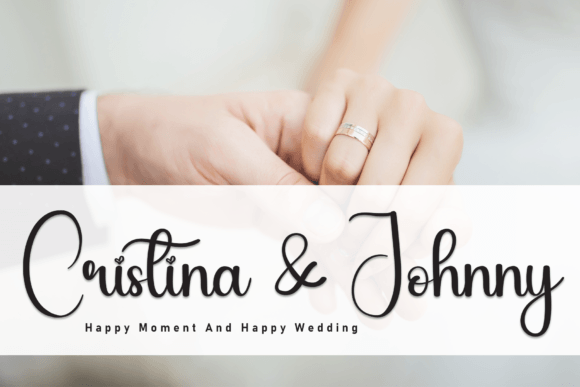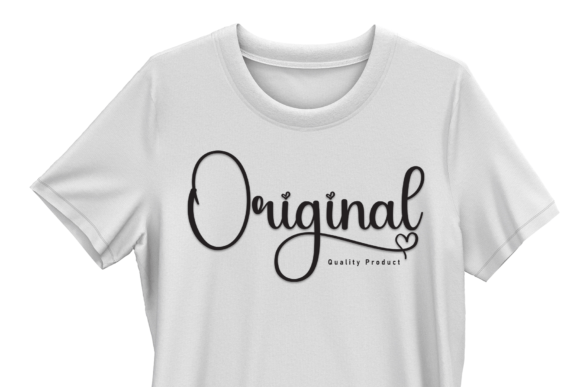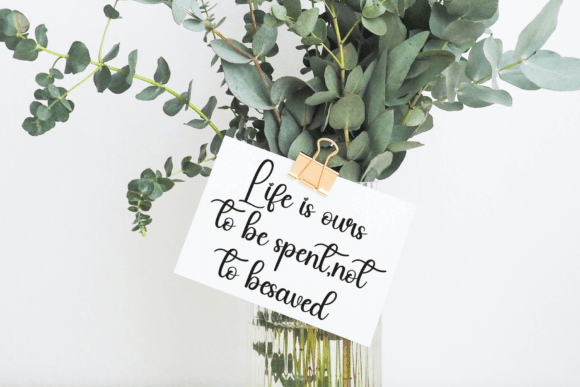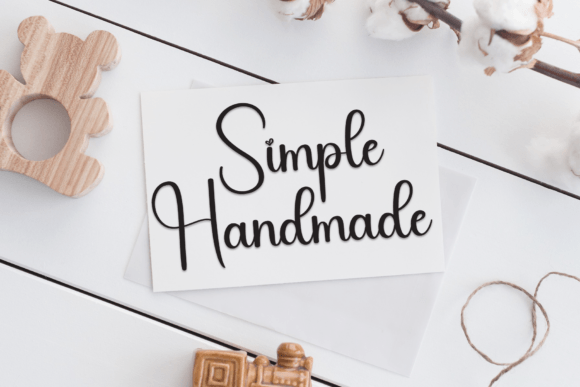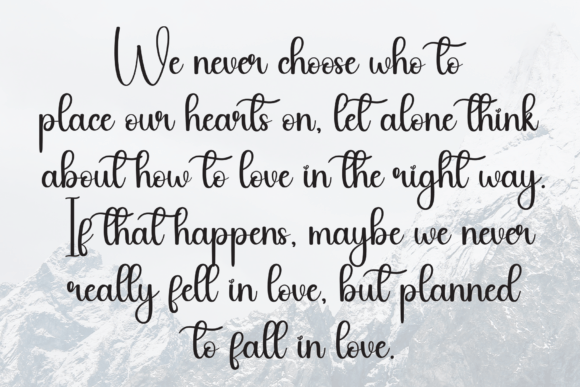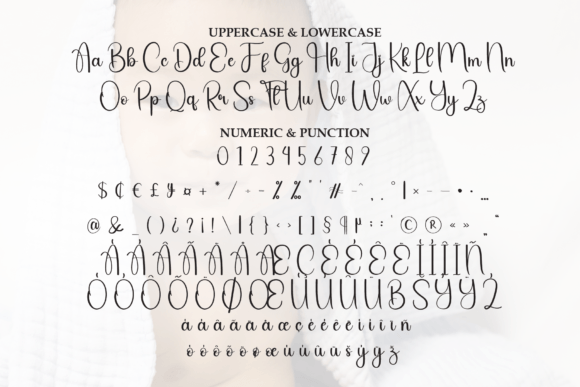
Babycute Font: Elevate Your Designs with Elegance and Magic
In the world of typography, few fonts manage to capture the essence of elegance and whimsy as perfectly as the Babycute Font. This magical script font is carefully crafted to bring a touch of sophistication and charm to any design project. Whether you’re a designer looking for the perfect font for your Instagram posts or a crafter seeking a beautiful calligraphy script for your DIY projects, Babycute is the ideal choice. In this article, we’ll explore the features and benefits of the Babycute Font and how it can transform your creative ideas into true pieces of art.
The Magic of Babycute Font
Babycute Font is more than just a script font; it’s an experience. Its elegant strokes and whimsical flair make it perfect for a wide range of applications, from digital designs to handmade crafts. The font’s unique charm lies in its ability to convey a sense of warmth and personality, making it ideal for projects that require a personal touch.
Key Features of Babycute Font
- Elegant Script Design: Babycute boasts beautiful, flowing script letters that add a touch of sophistication to any project.
- Versatile: Suitable for a variety of applications, including Instagram posts, DIY projects, branding, and more.
- Easy to Read: Despite its elegant design, Babycute remains clear and easy to read, making it perfect for both digital and print use.
- Magical Touch: The font’s whimsical elements give it a unique charm that can make your designs stand out.
Uses of Babycute Font
The versatility of Babycute Font makes it a valuable addition to any designer’s or crafter’s toolkit. Here are some popular uses for this enchanting font:
- Instagram and Social Media: Elevate your social media posts with stylish and eye-catching text. Babycute’s elegant design is sure to grab attention and make your feed stand out.
- DIY Projects: Add a personal touch to your handmade crafts, such as journals, cards, and decorations. Babycute’s calligraphy script is perfect for creating beautiful, one-of-a-kind items.
- Branding and Marketing: Use Babycute to create elegant and memorable branding materials, such as logos, business cards, and brochures.
- Stationery and Invitations: Create stunning stationery, invitations, and greeting cards with Babycute’s charming script.
Tips for Using Babycute Font
To get the most out of Babycute Font, consider the following tips:
- Pair with Complementary Fonts: Combine Babycute with clean, sans-serif fonts for a balanced and modern look.
- Experiment with Colors: While Babycute looks great in classic black and white, don’t be afraid to experiment with colors to match your brand or project’s aesthetic.
- Adjust Letter Spacing: Fine-tune the letter spacing to ensure your text looks elegant and easy to read.
- Use it Sparingly: While Babycute is beautiful, using it sparingly can make it more impactful. Consider using it for headings or key messages.
Babycute Font is a magical script font that brings a touch of elegance and whimsy to any design project. Its versatility, readability, and unique charm make it an excellent choice for designers and crafters alike. Whether you’re creating digital content for Instagram or working on handmade DIY projects, Babycute can help you turn your creative ideas into true pieces of art. So, why wait? Discover the magic of Babycute Font and elevate your designs to new heights!